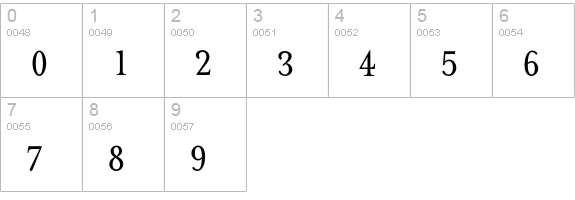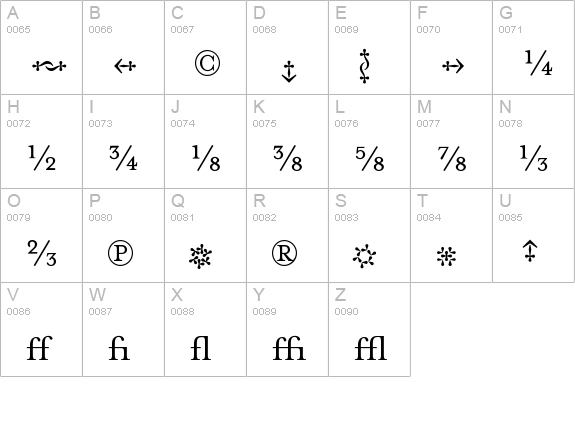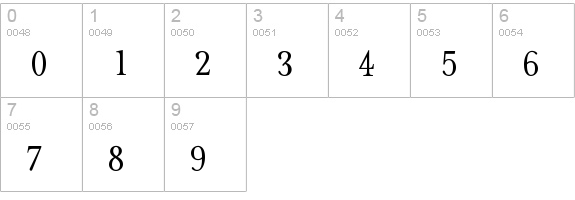
MrsEavesFractions Font Details
MrsEavesFractions font is a sophisticated and elegant typeface designed for those who appreciate classic and timeless design. This font features beautifully crafted fractions that seamlessly blend with the rest of the characters, creating a cohesive and harmonious look. The delicate serifs and graceful curves of MrsEavesFractions exude a sense of refinement and style, making it perfect for projects that require a touch of sophistication. What sets MrsEavesFractions apart is its exceptional attention to detail and the precision with which the fractions are designed. Each fraction is meticulously crafted to ensure clarity and readability, making it easy for readers to decipher even the smallest numerals. Best of all, MrsEavesFractions is available for free download at FontsMarket.com. This means that you can elevate your design projects with this exquisite font without having to worry about additional costs. Whether you're working on a branding project, a wedding invitation, or a publication that requires precise typographic detailing, MrsEavesFractions is sure to add a touch of elegance and sophistication to your work. Download it today and experience the beauty and versatility of this stunning typeface.